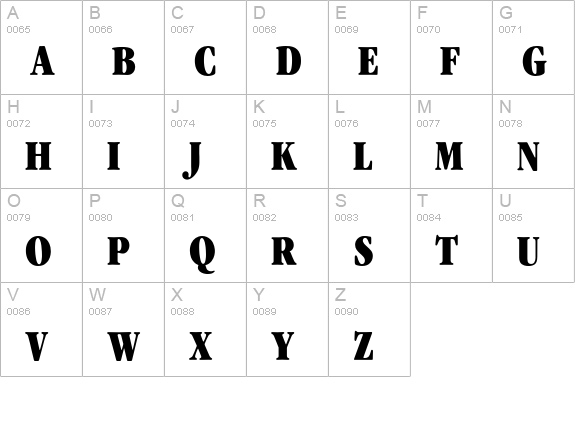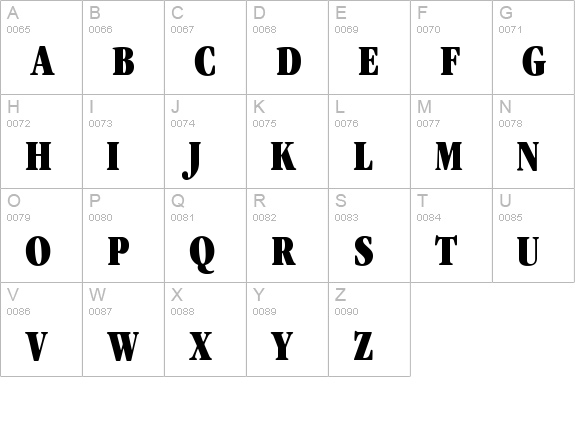
Garamond* Condensed Ultra Font Details
Garamond* Condensed Ultra is an extreme-weight, display, condensed-width variant in the Garamond* typeface family \xE2\x80\x94 well suited to extreme display use where maximum visual weight is required.
Garamond* Condensed Ultra font is a sleek and elegant typeface that exudes sophistication and style. With its condensed design, this font is perfect for creating eye-catching headlines, titles, and other design elements that require a touch of modernity. The sharp, clean lines of Garamond* Condensed Ultra make it a versatile choice for both print and digital projects. What makes this font even more appealing is that it is available for free download at FontsMarket.com. This means that you can easily incorporate Garamond* Condensed Ultra into your designs without having to worry about any additional costs. Whether you're working on a branding project, a website design, or any other creative endeavor, this font is sure to elevate your work to the next level. Don't miss out on the opportunity to use Garamond* Condensed Ultra in your design projects. Download it for free today from FontsMarket.com and start creating stunning visuals that will leave a lasting impression.